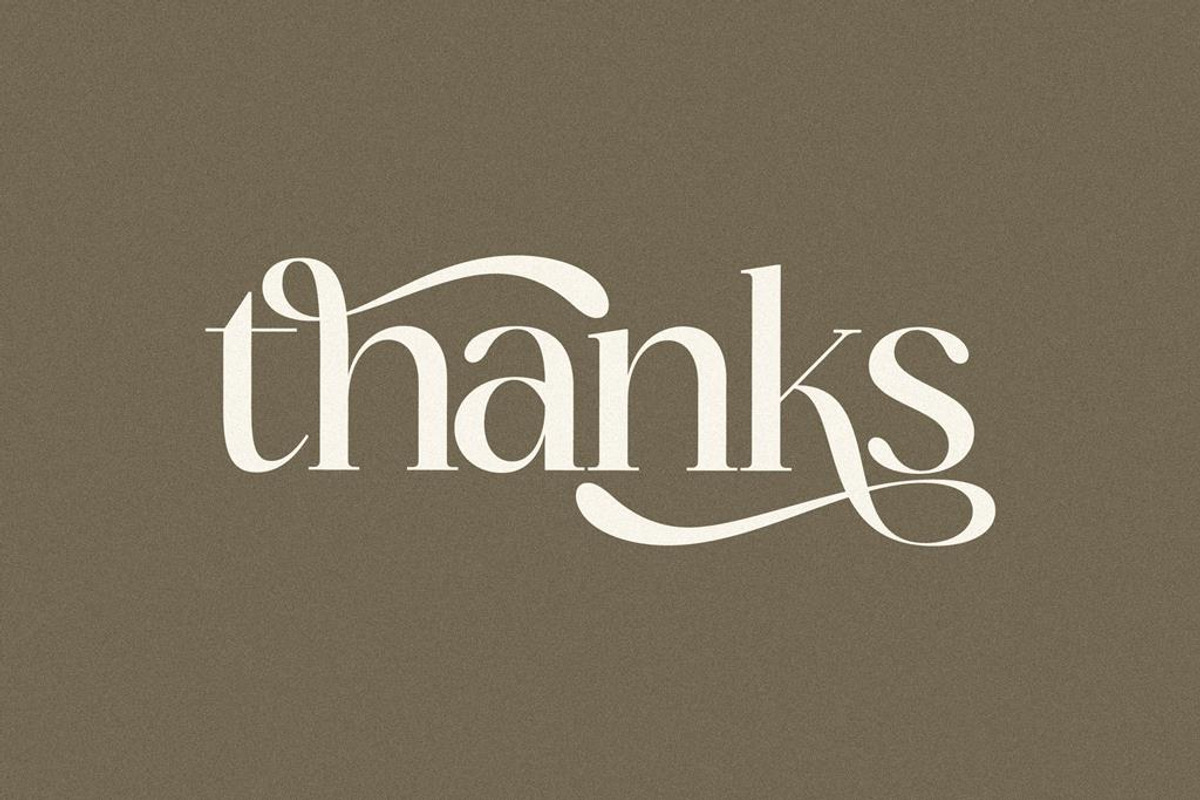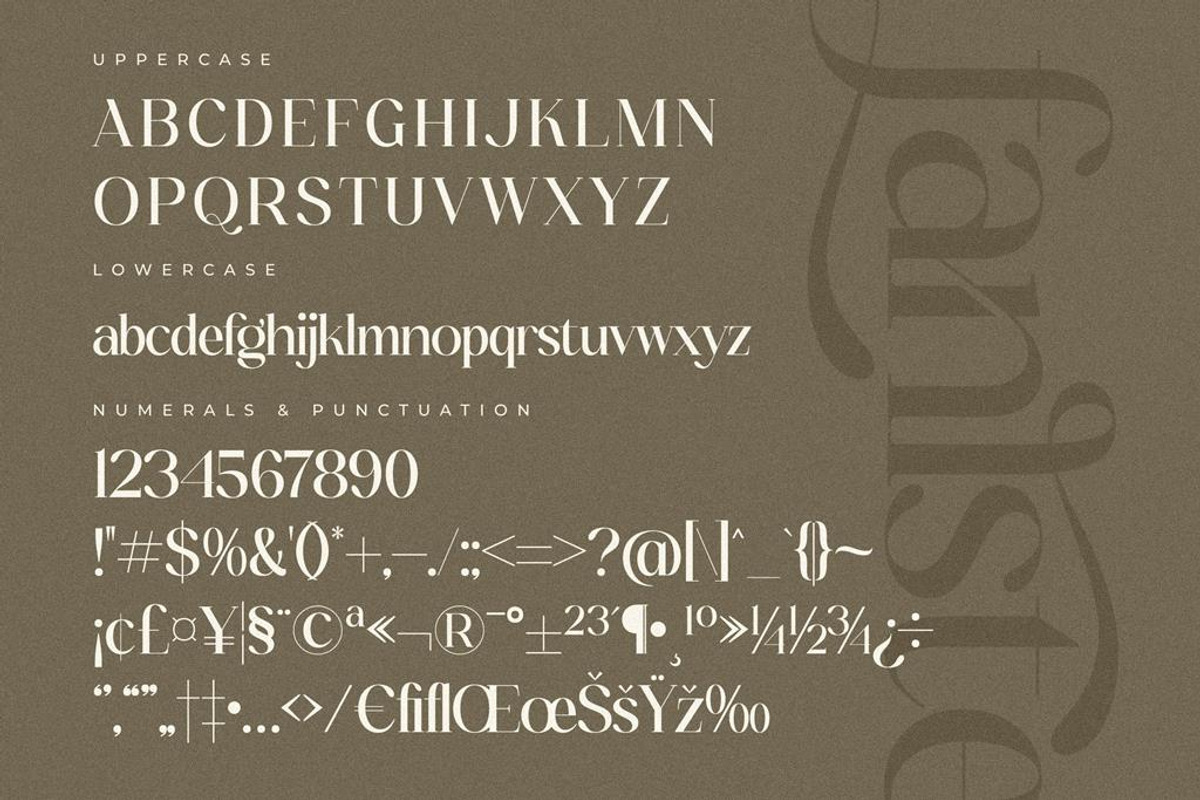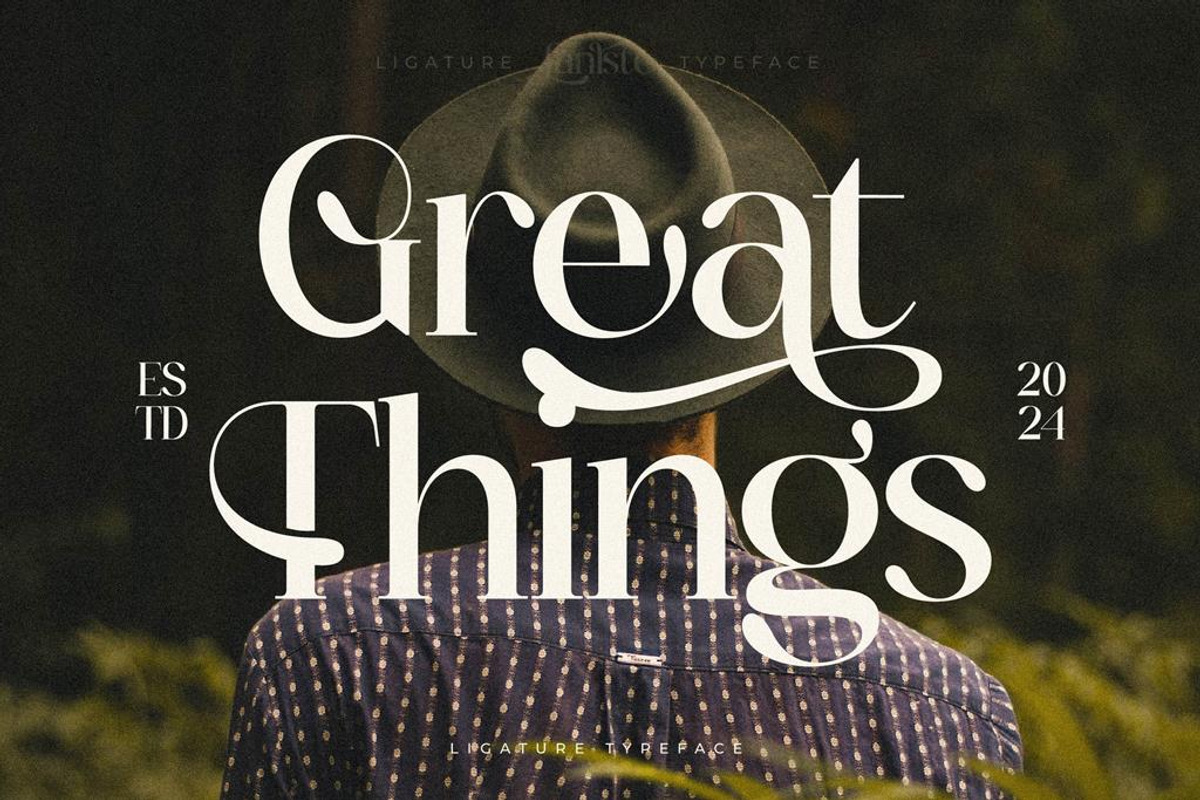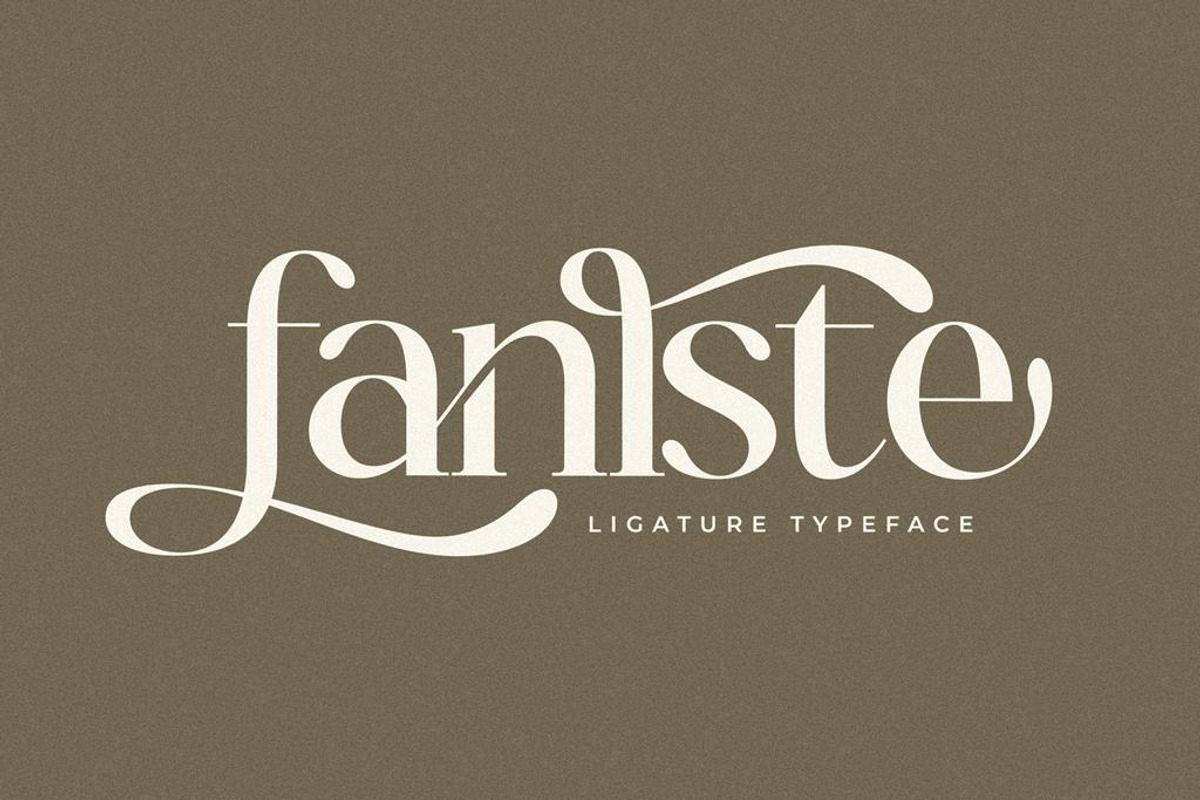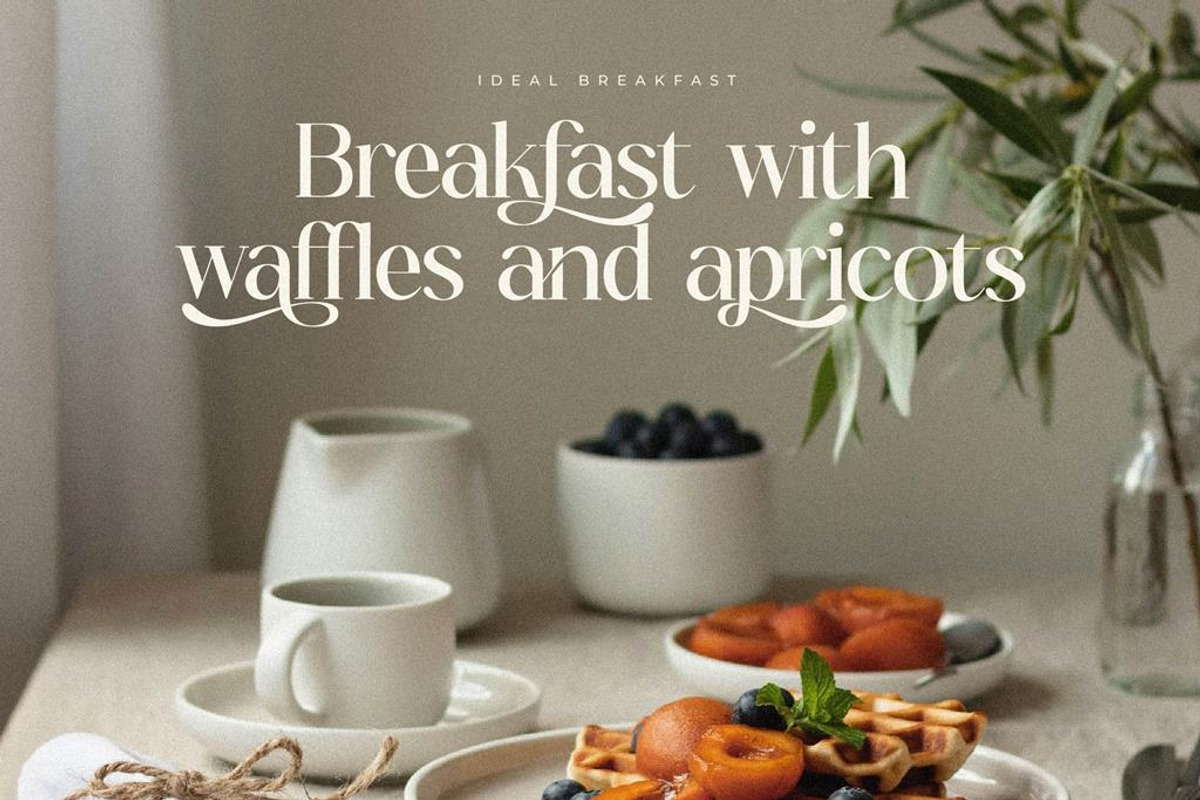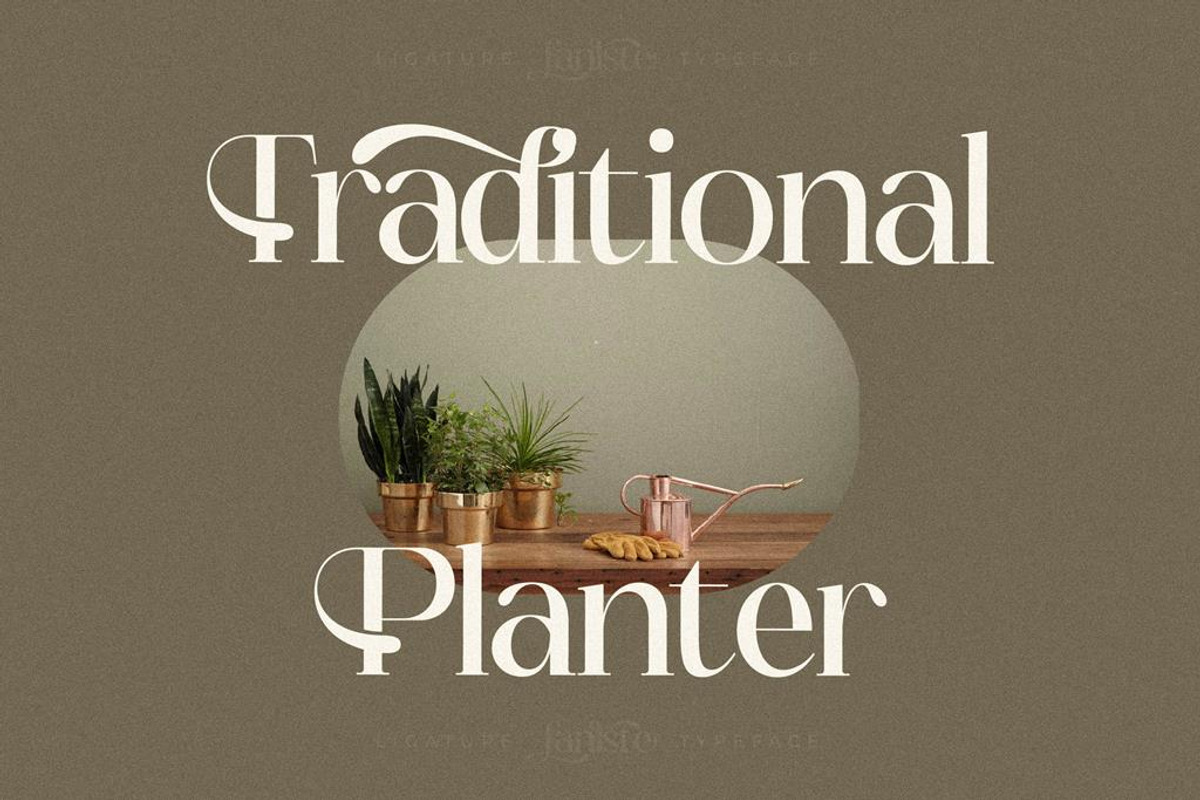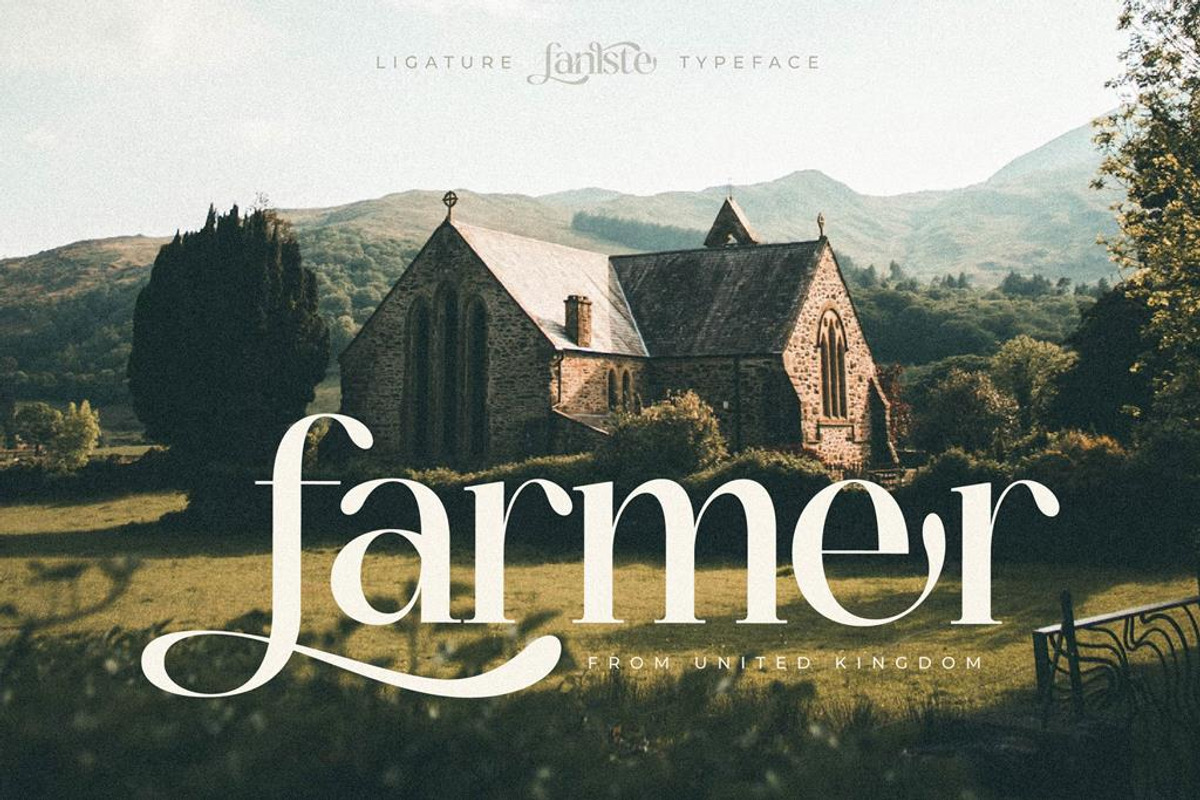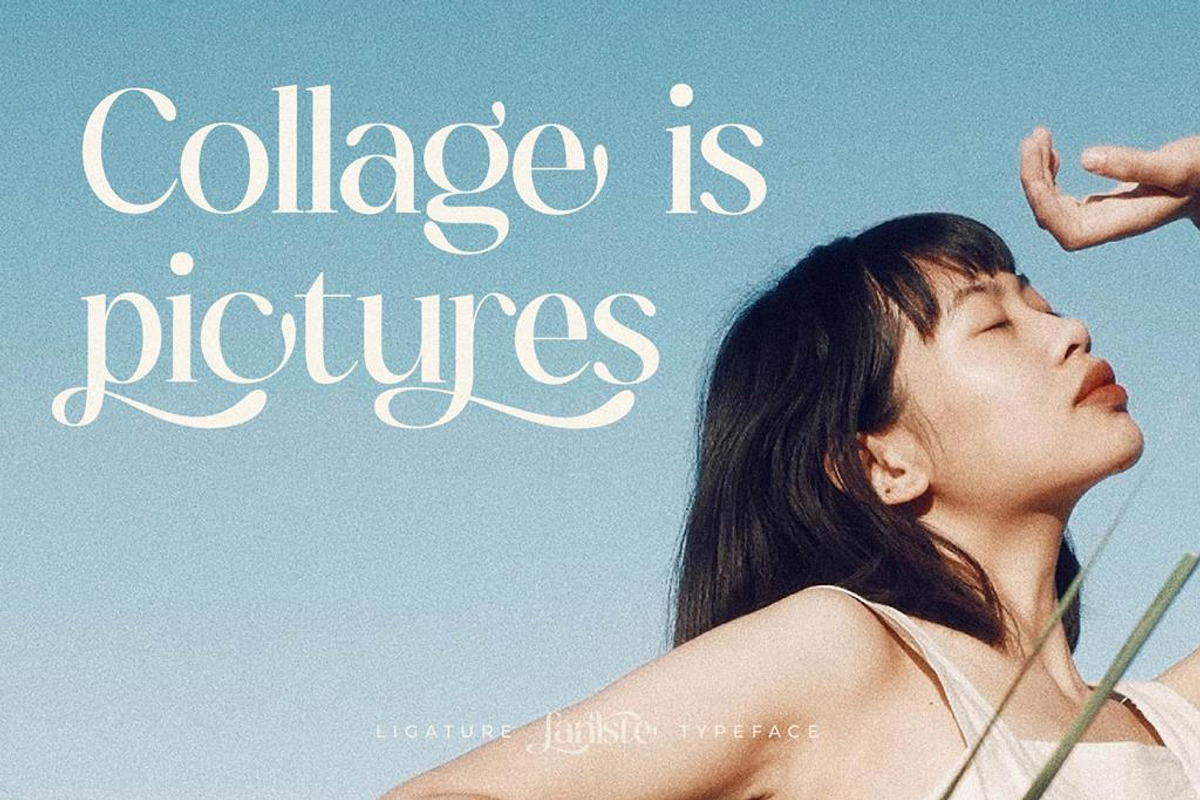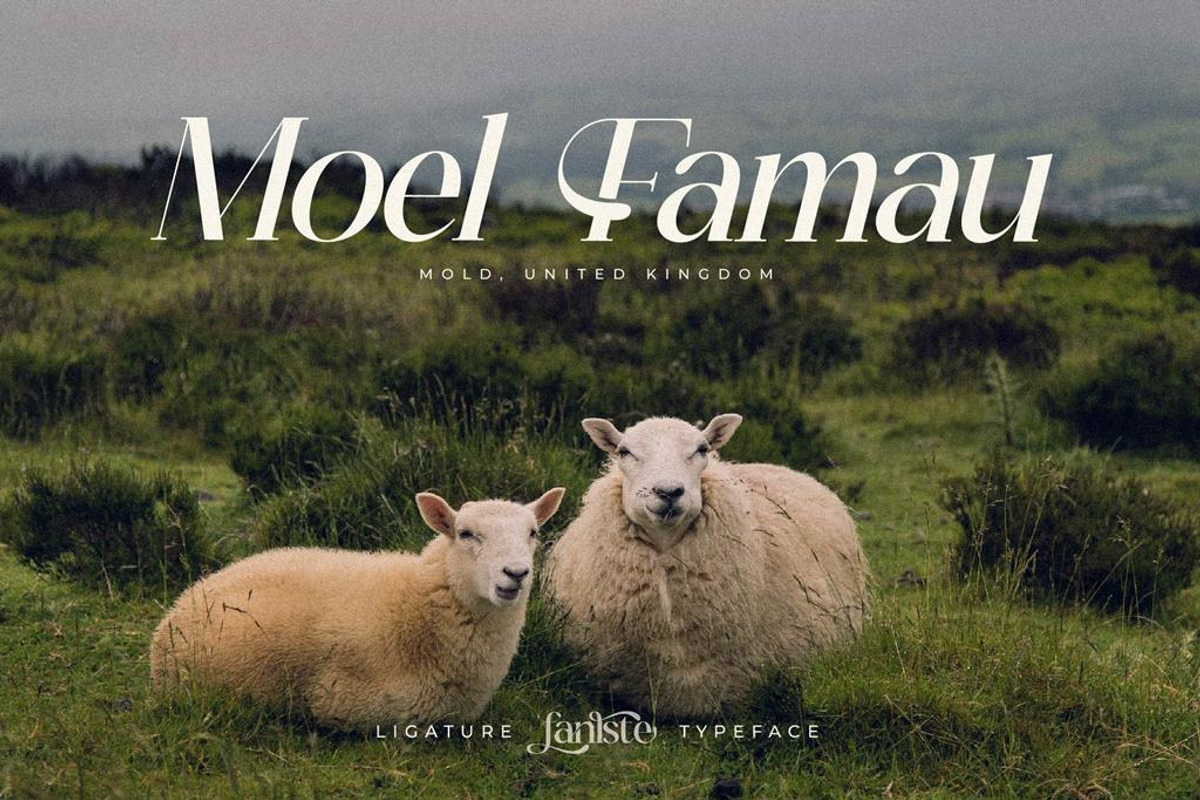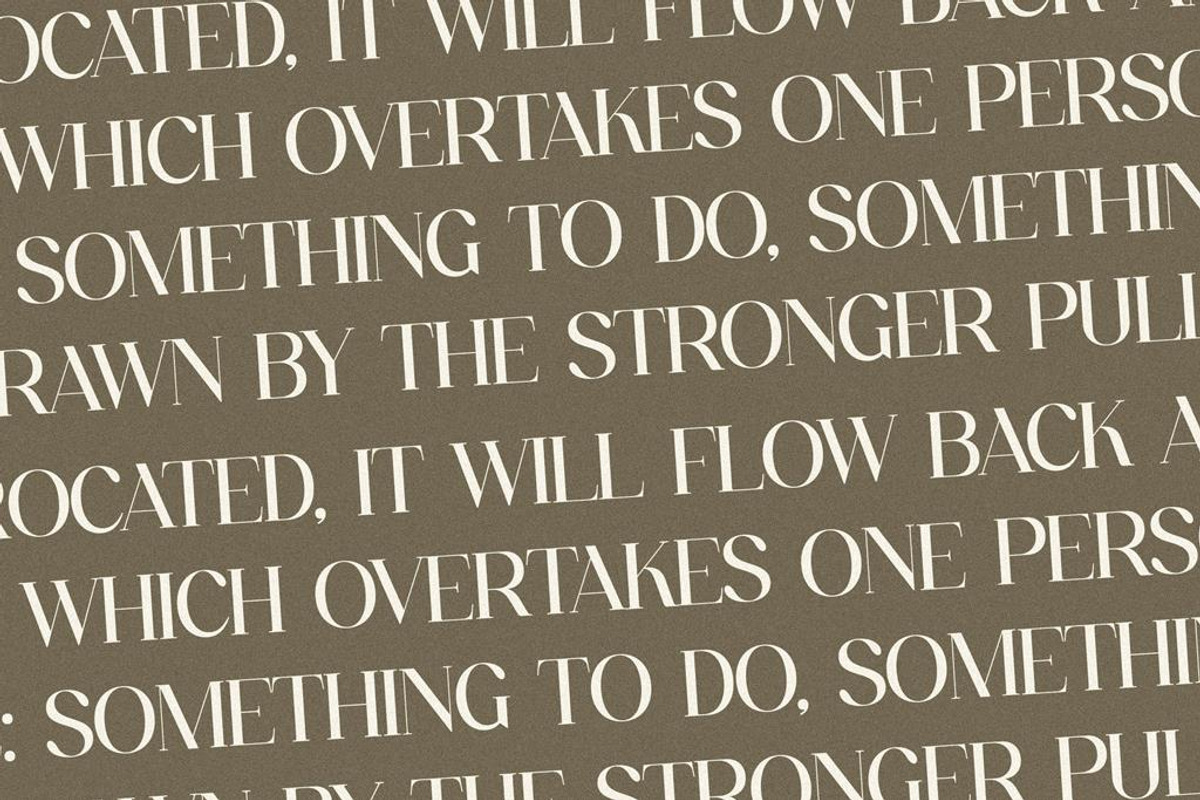
Fanlste Ligature Typeface Font
Proudly present fanlste Typeface , created by Storytype, A serif modern and classic typeface that has own unique style & modern look. This typeface is perfect for an elegant & luxury logo, book or movie title design, fashion brand, magazine, clothes, lettering, quotes, and so much more.